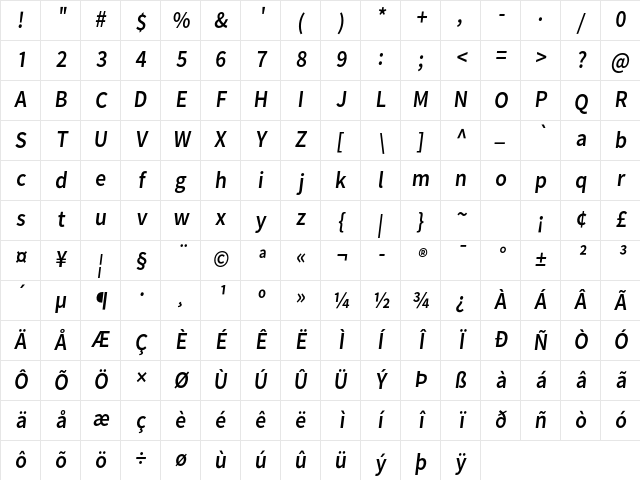
Falling Sky CondObl Free Font
Falling Sky CondObl
Style: CondObl
Designer: Paul D. Hunt
Design Context for Falling Sky
Falling Sky is a composed and adaptable typeface that performs quietly and consistently across a wide range of design contexts. Its narrow stance lets it pack a punch even in space-constrained designs.